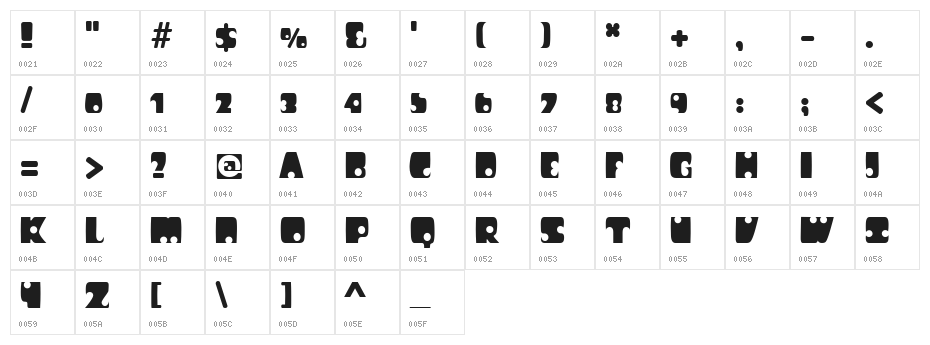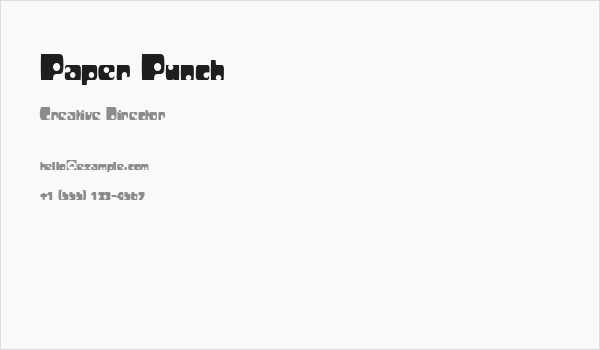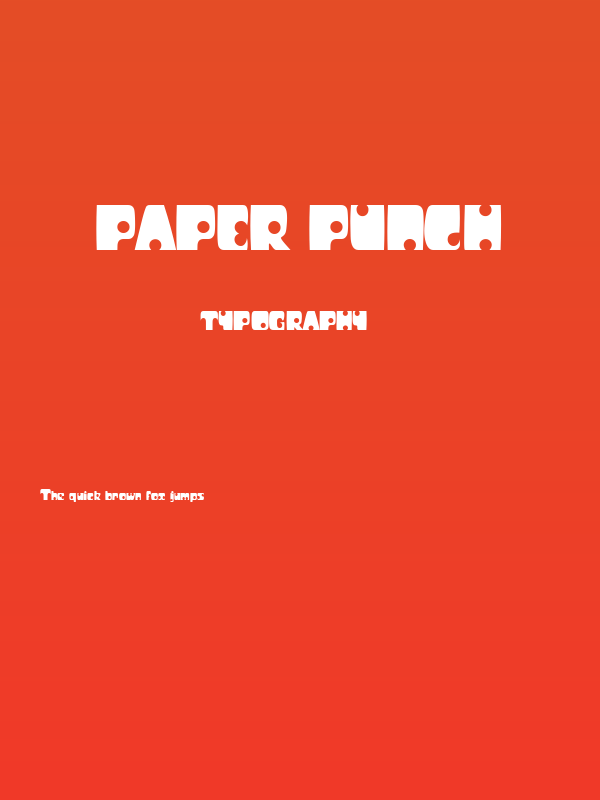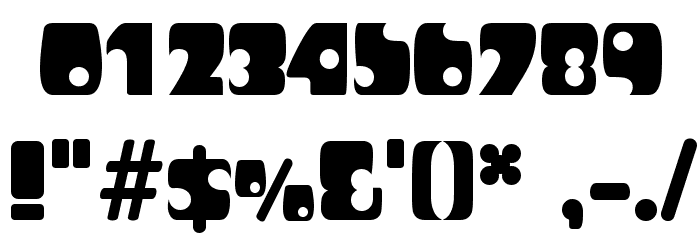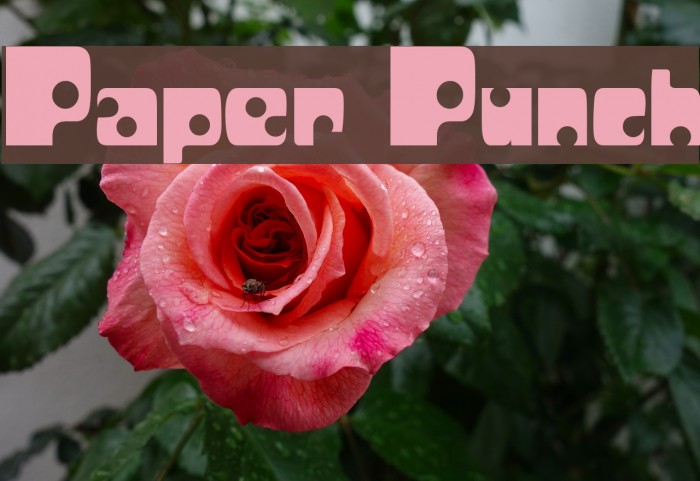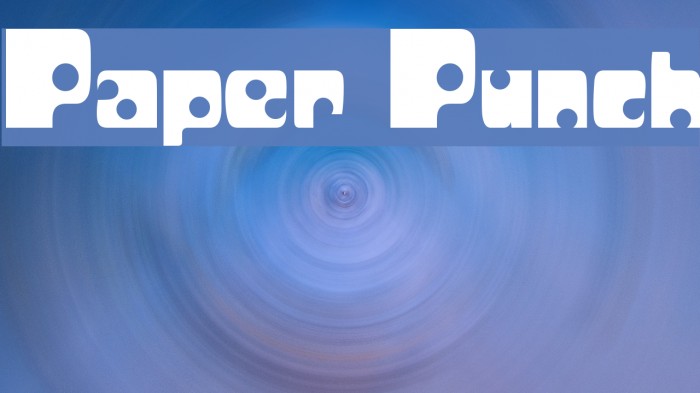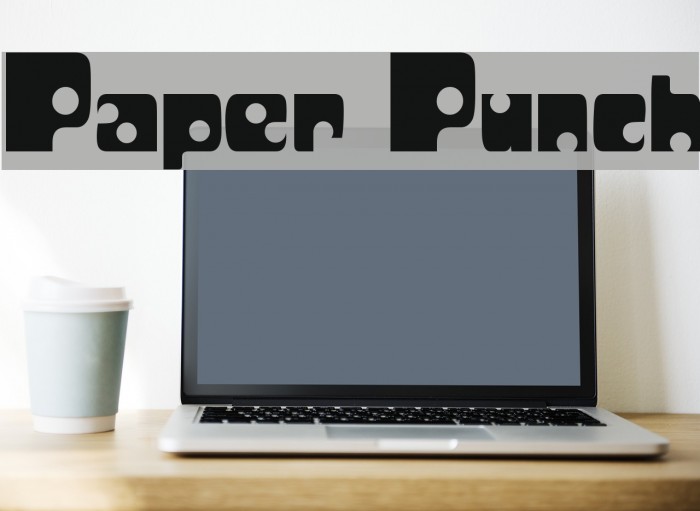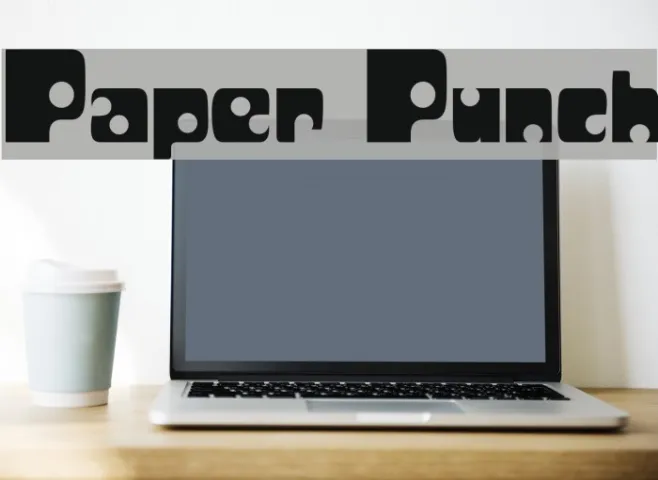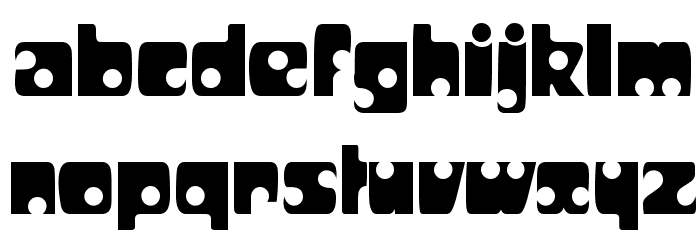
Paper Punch Font
Paper Punch Description
This font features a bold and playful design with a unique cut-out style reminiscent of paper punch shapes. The characters are heavily weighted with rounded edges and circular cut-outs that create a whimsical and eye-catching effect. The uppercase and lowercase letters maintain a consistent style, with the cut-outs strategically placed to enhance readability while adding a decorative touch. The numbers and special characters follow the same design principles, ensuring a cohesive look across all glyphs. This font's distinct appearance makes it ideal for creative projects that require a fun and engaging visual element.
| Overall Style | Playful, Whimsical |
| Proposed Projects | Ideal for children's books, playful branding, posters, and creative invitations. |